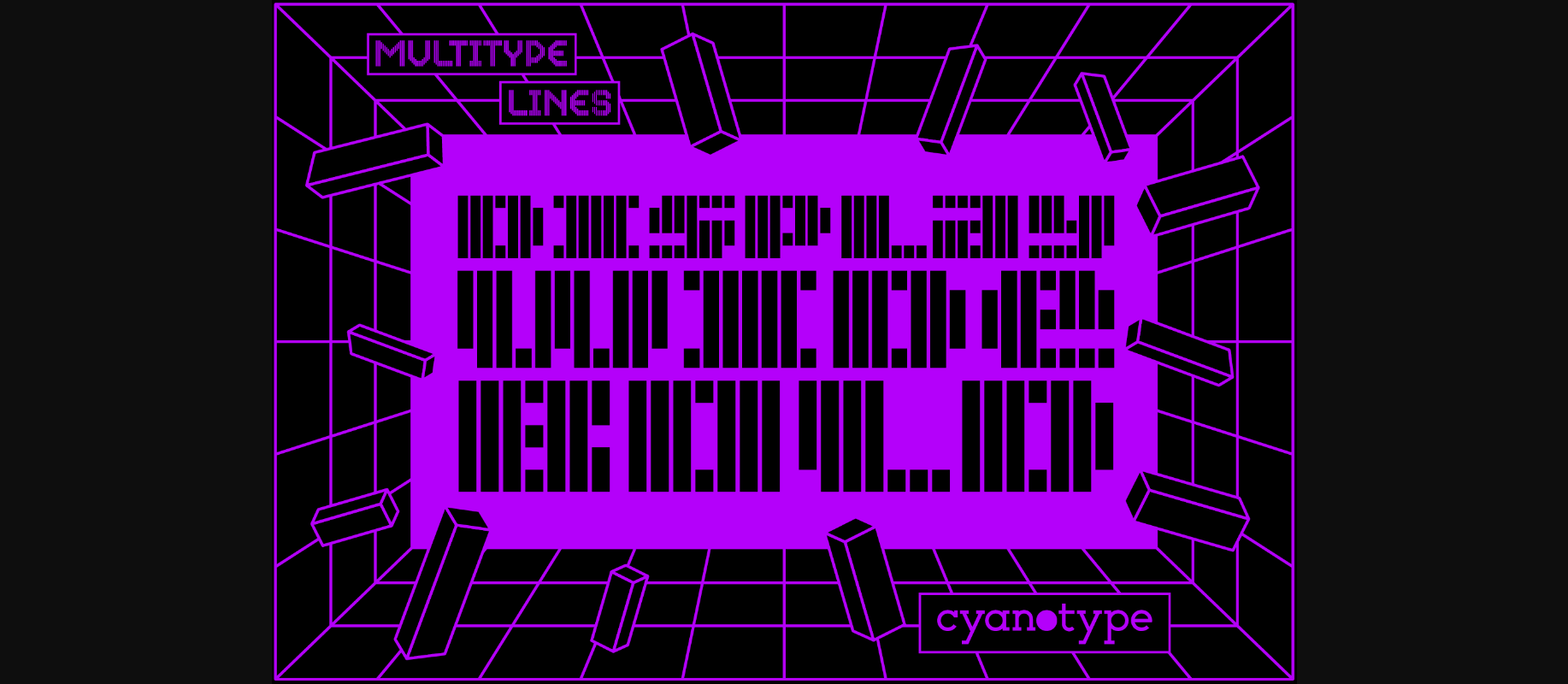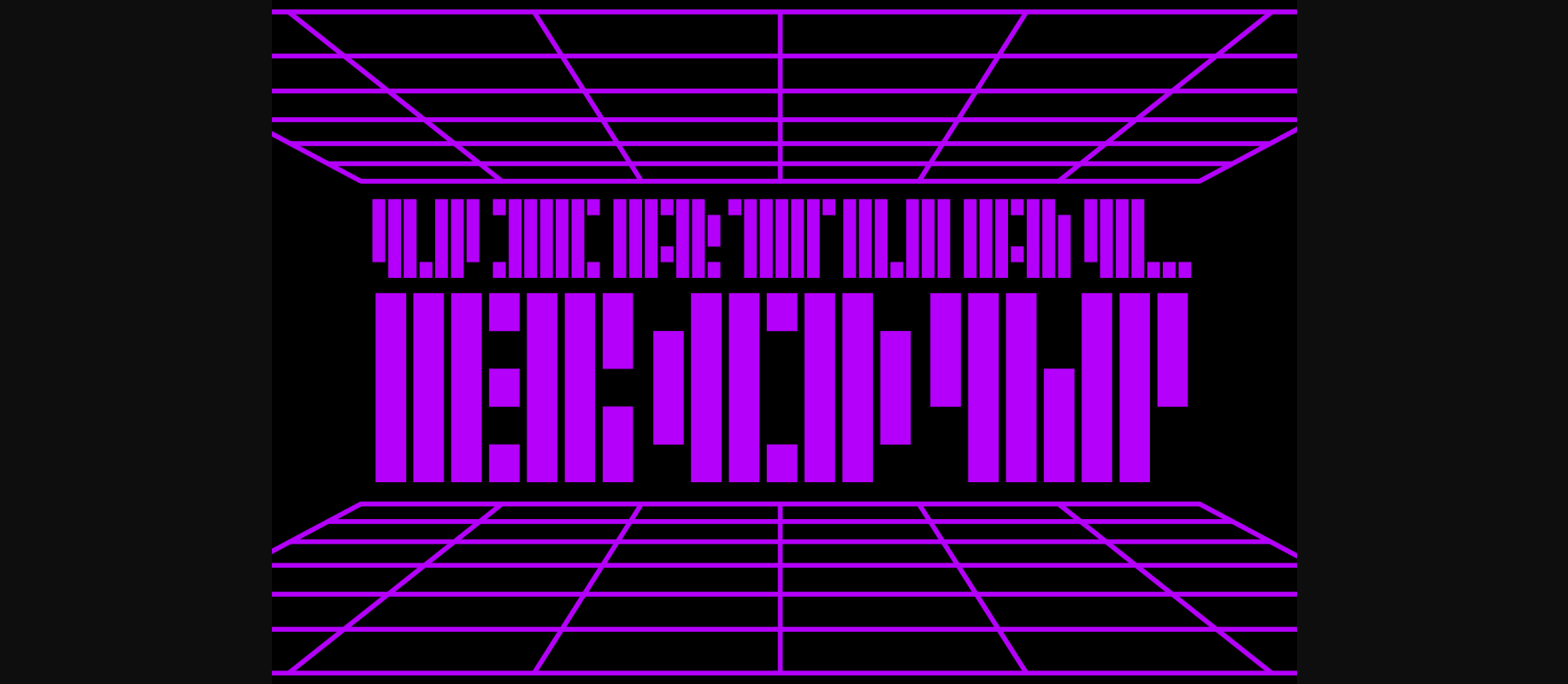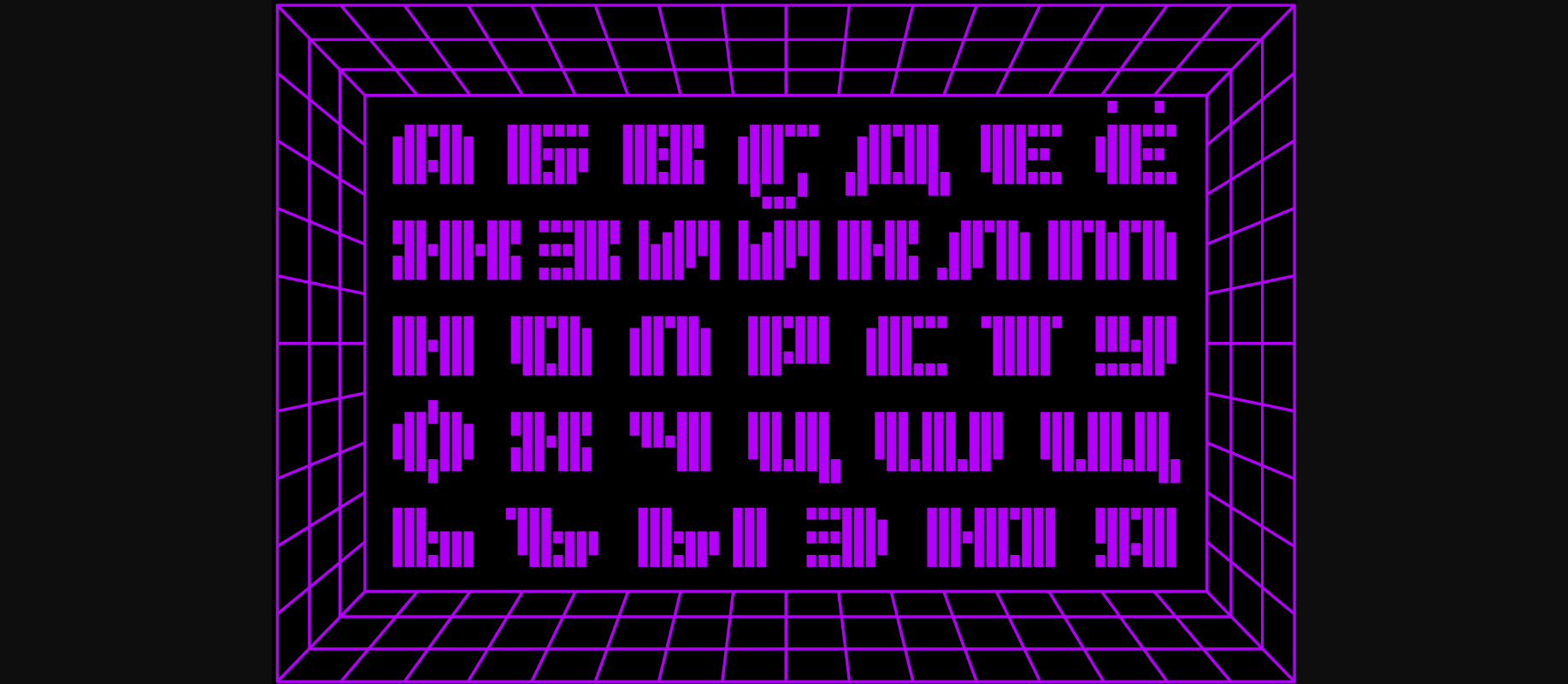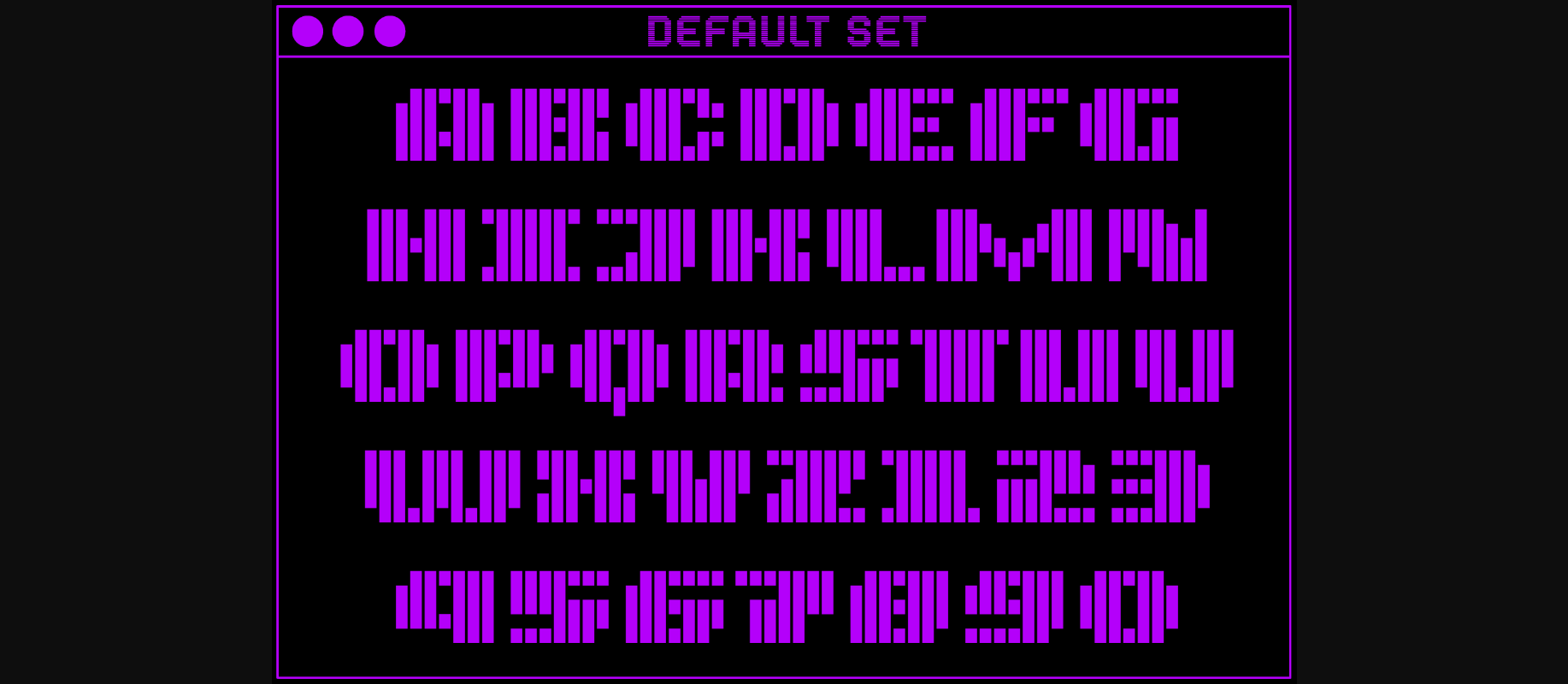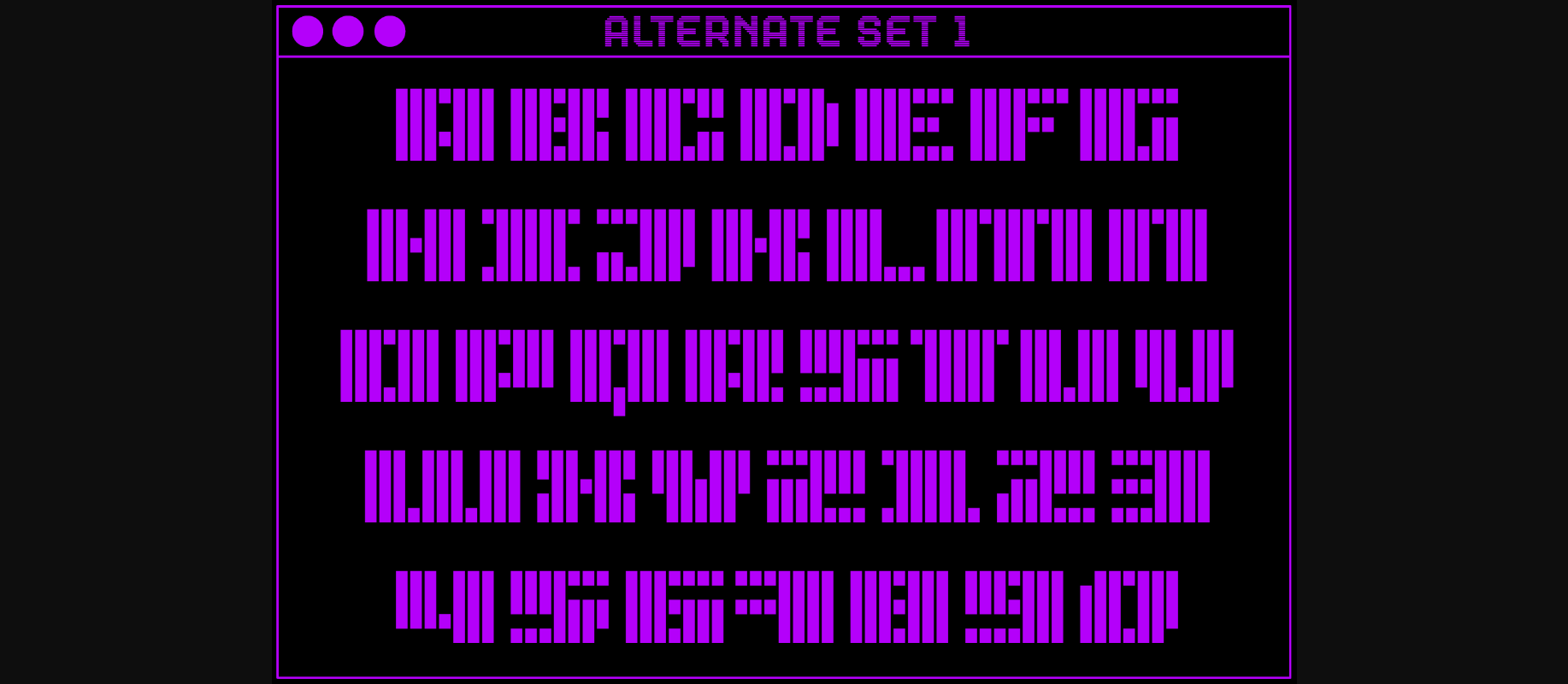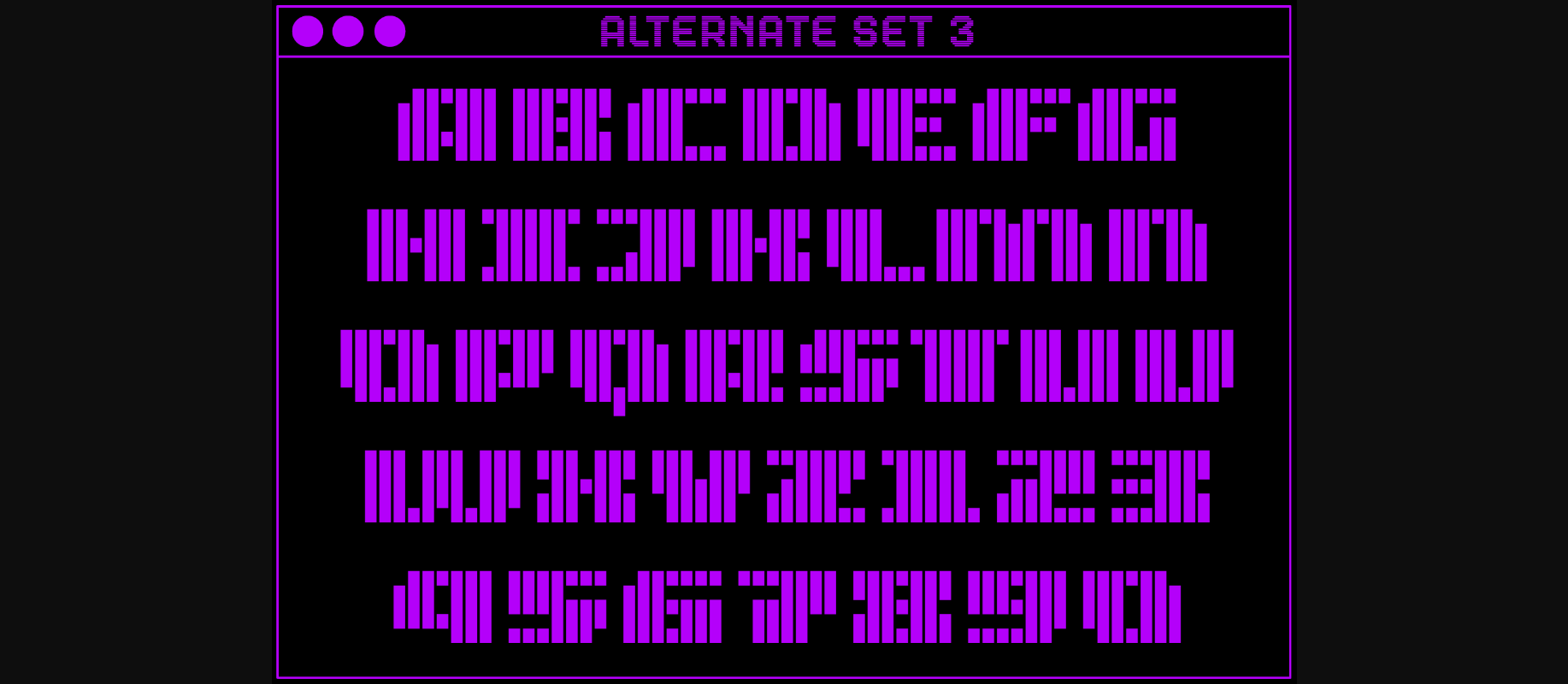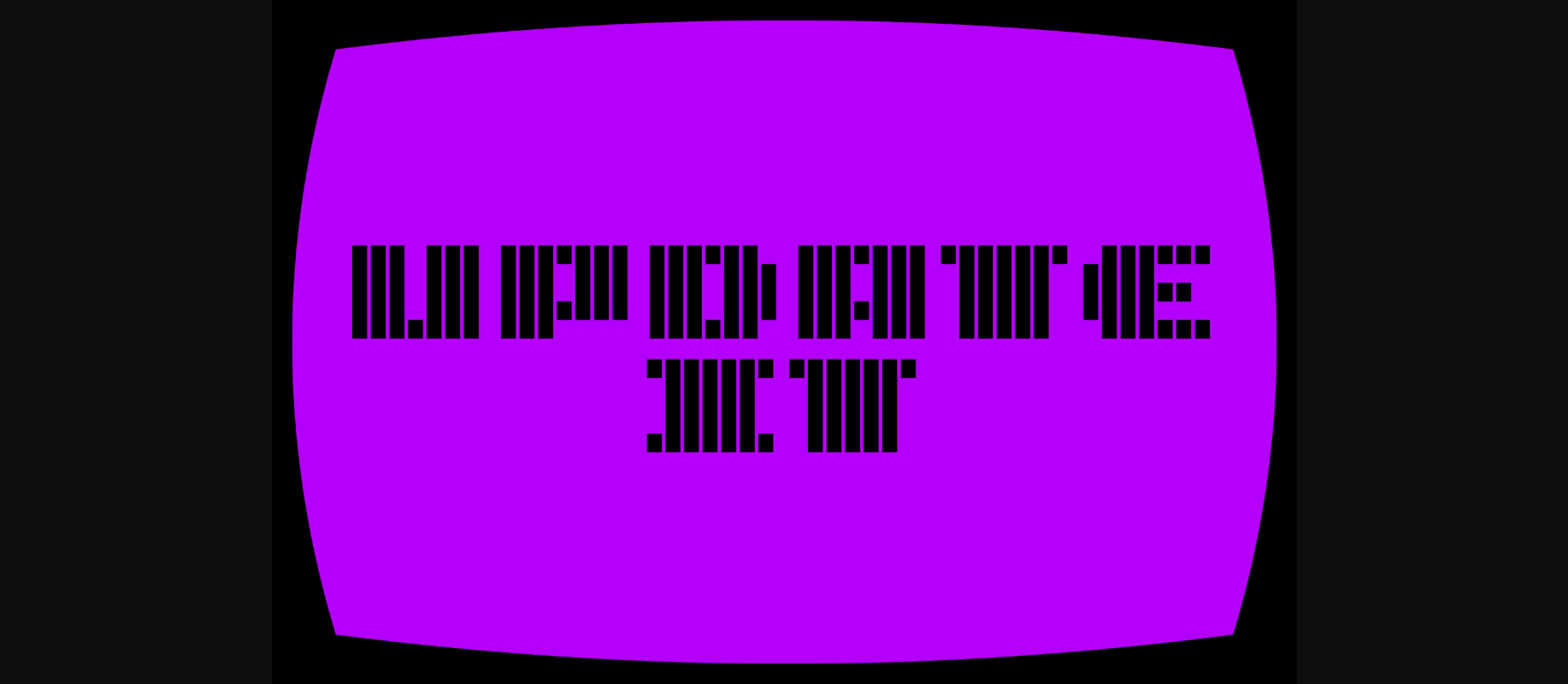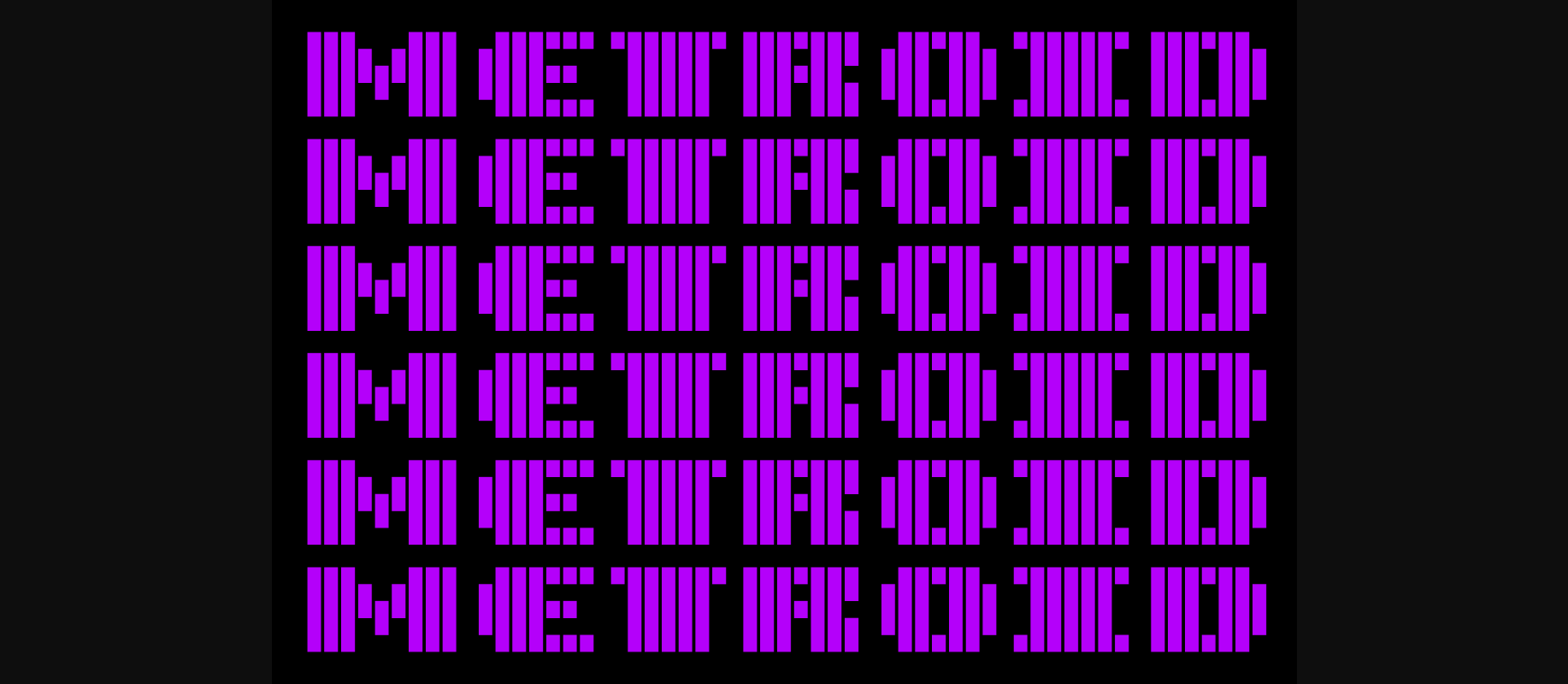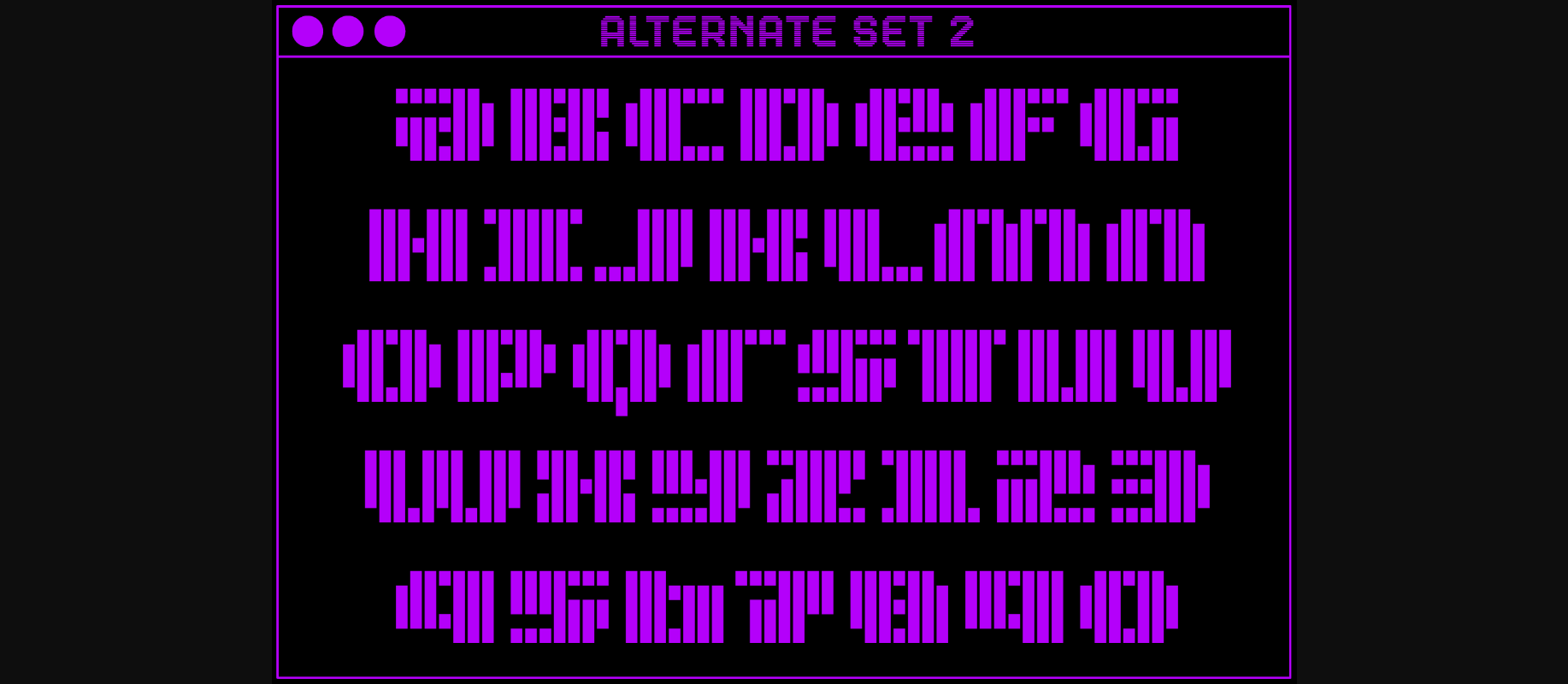
MultiType Lines Display Wide Bold Font
About MultiType Lines Display Wide Bold Font
MultiType Lines Display Wide Bold is a cool, uniquely shaped, pixelated decorative font. Add a distorted and trendy touch to your designs with this unusual pixel font!